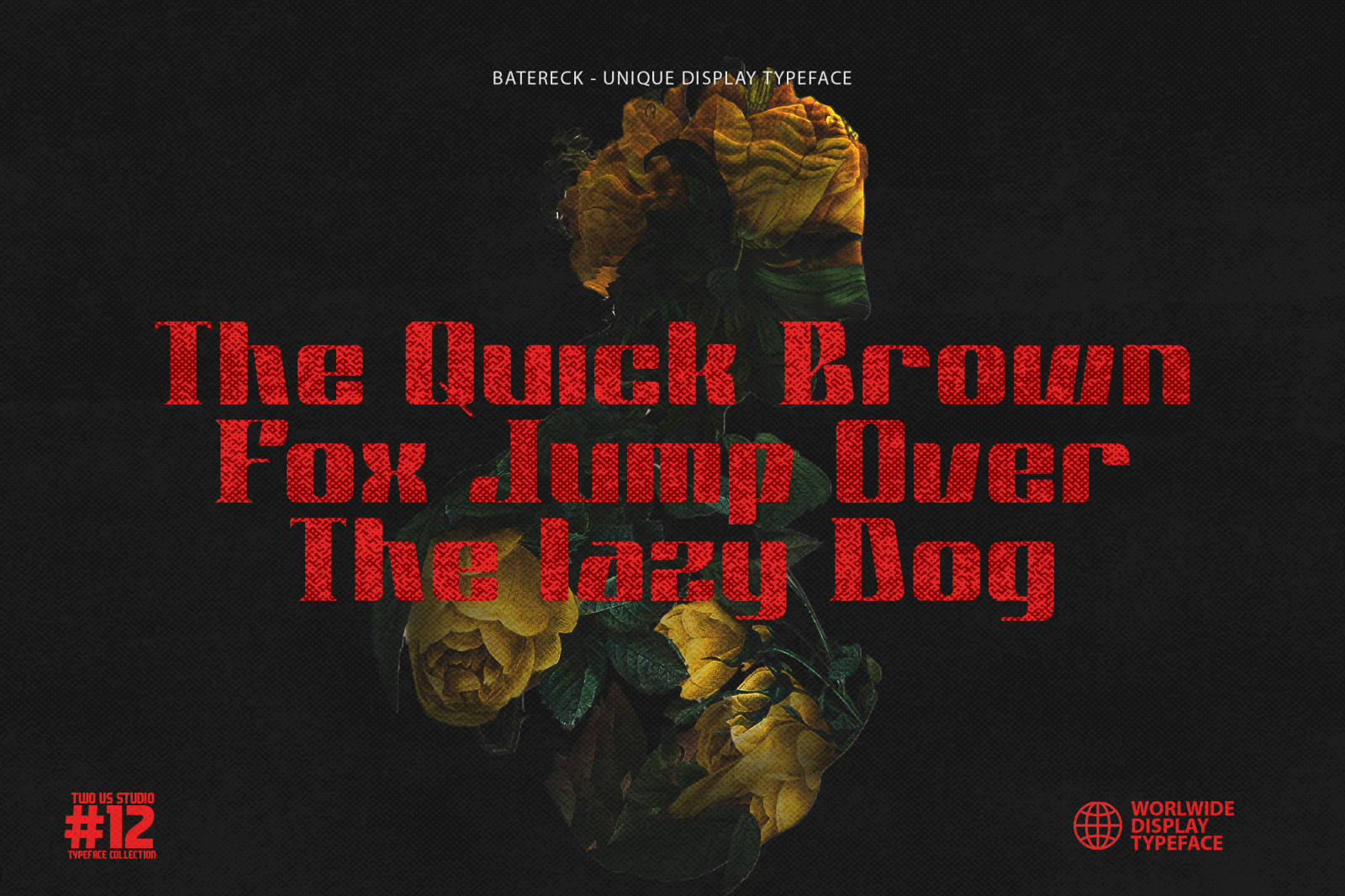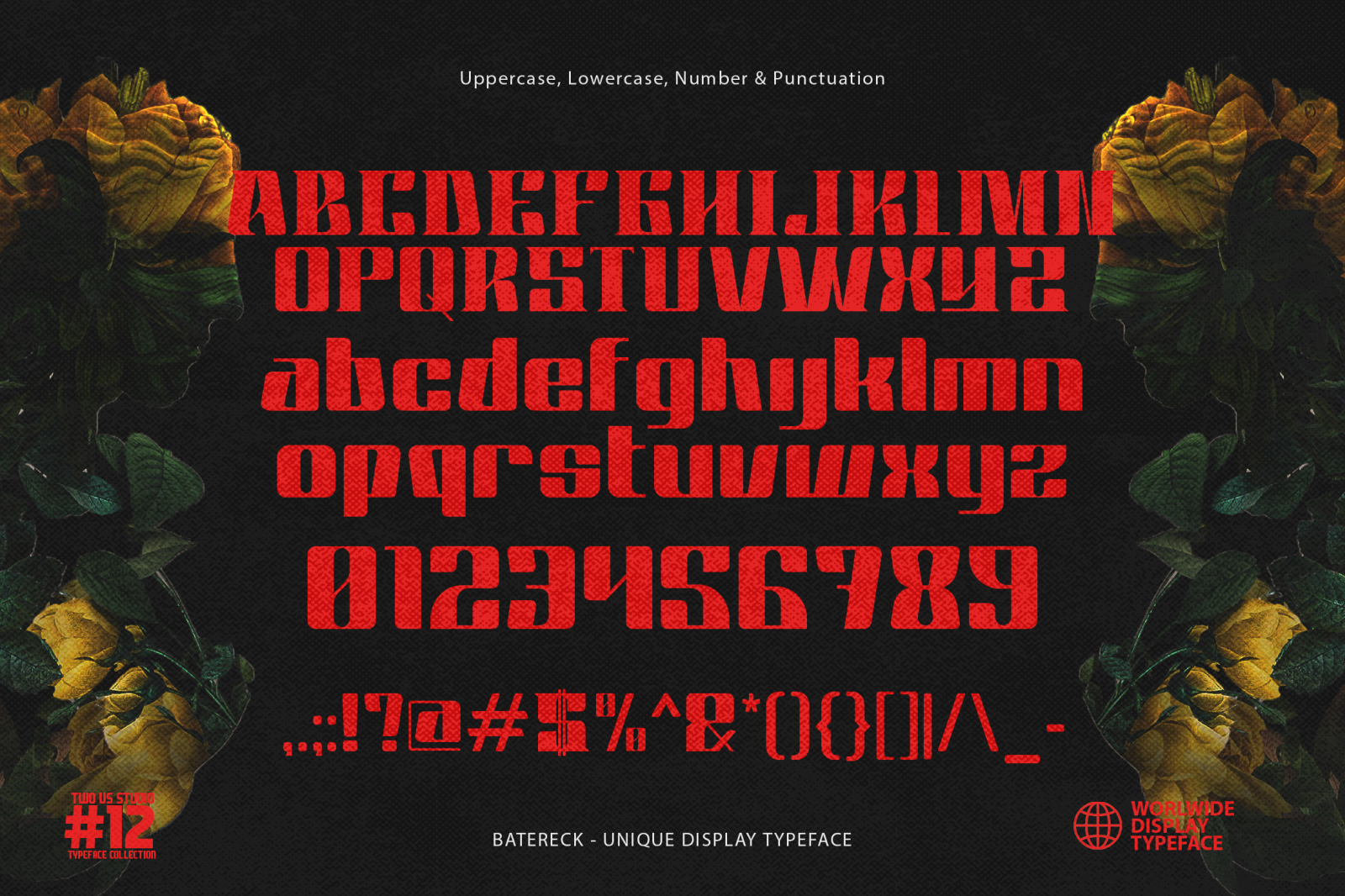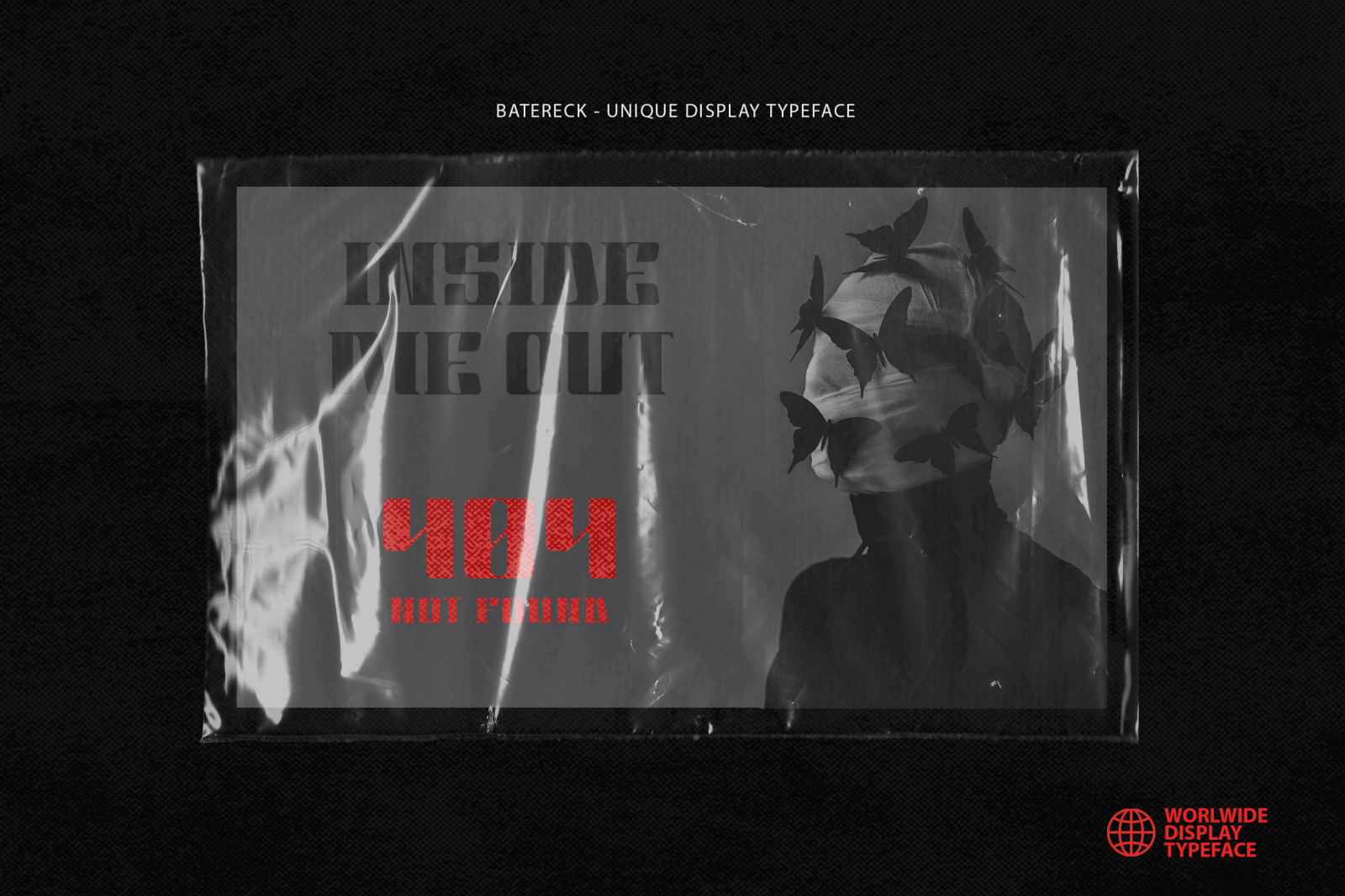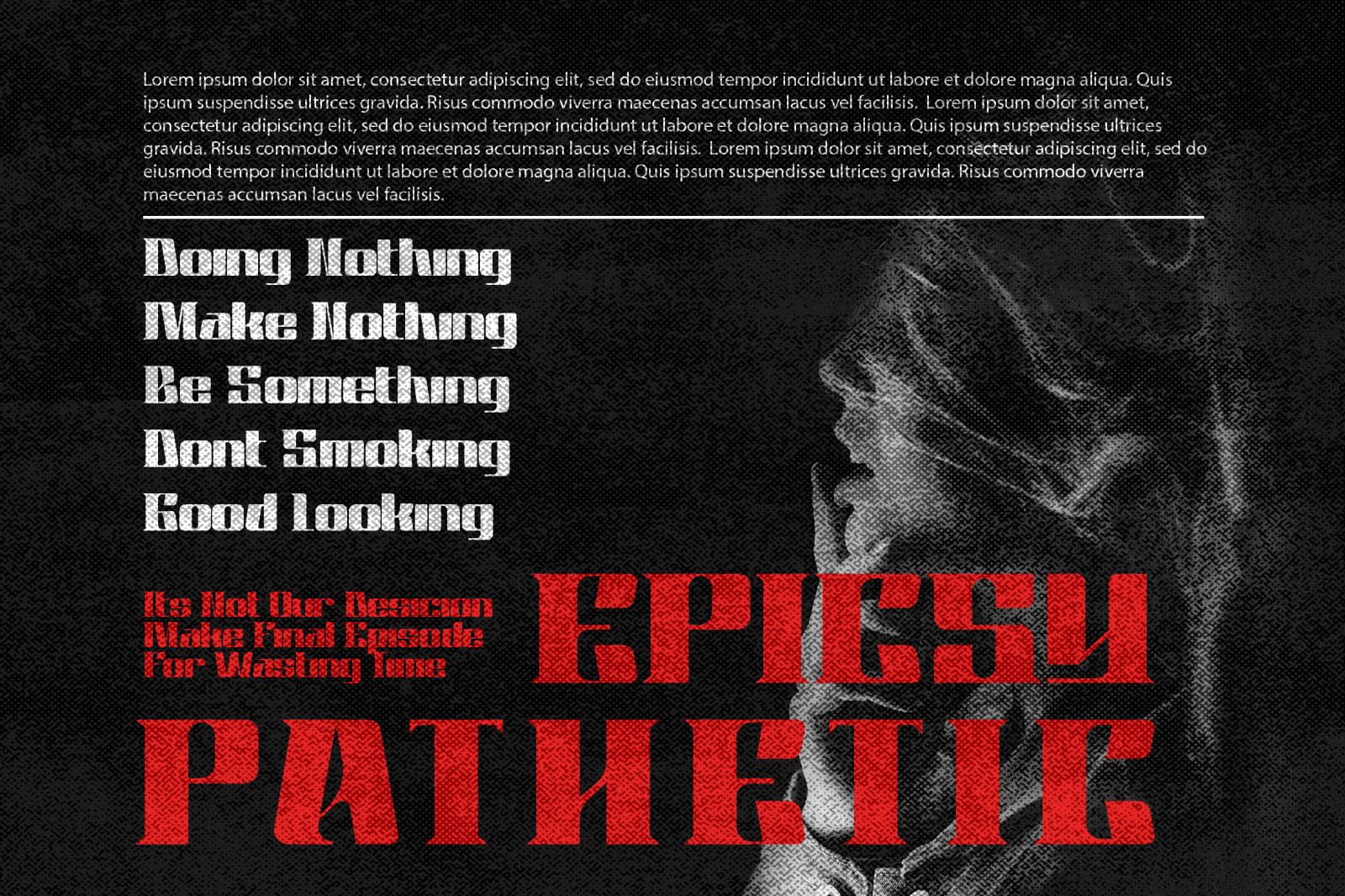
BATERECK - UNIQUE DISPLAY TYPEFACE
Batereck is a futuristic display typeface. This modern and bold vibe can easily apply to your favorite designs that require a sci-fi touch.